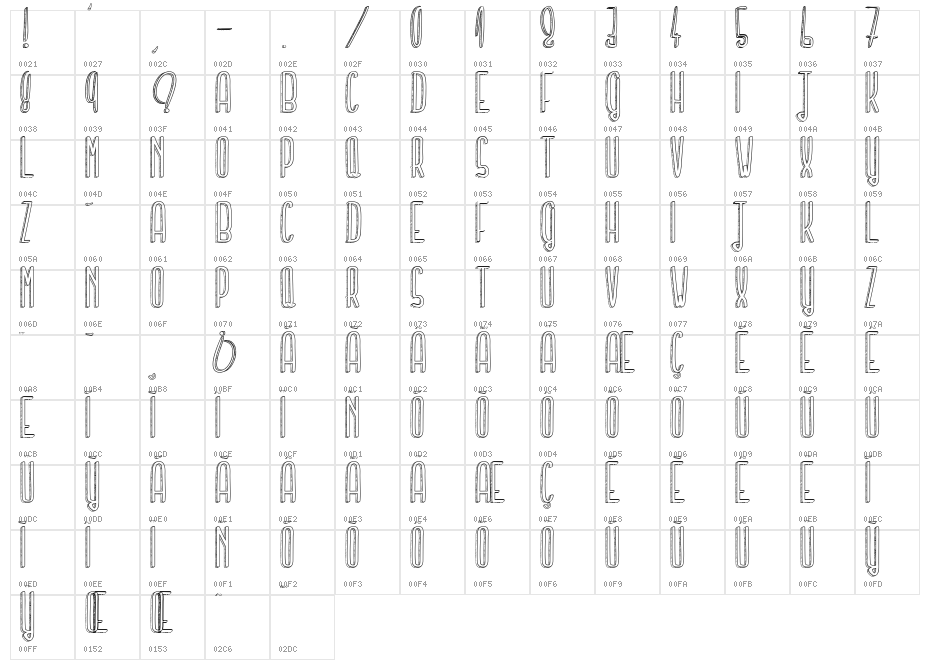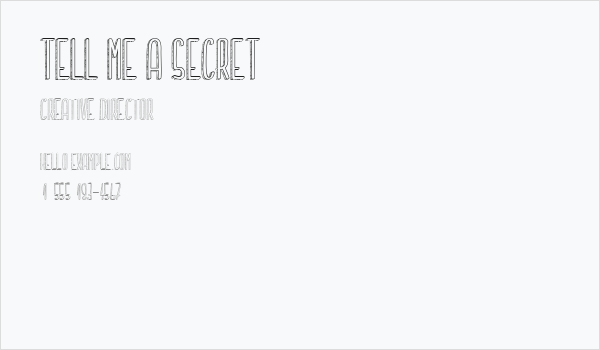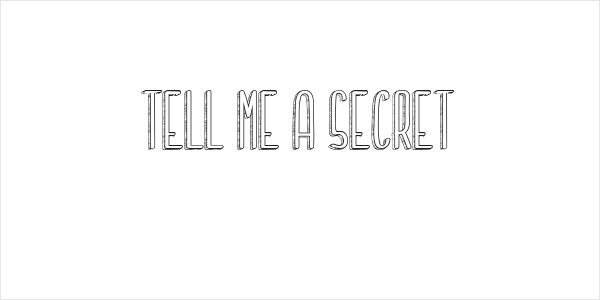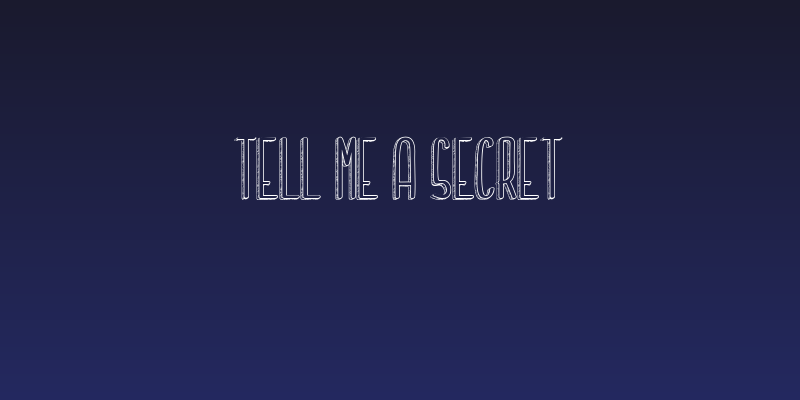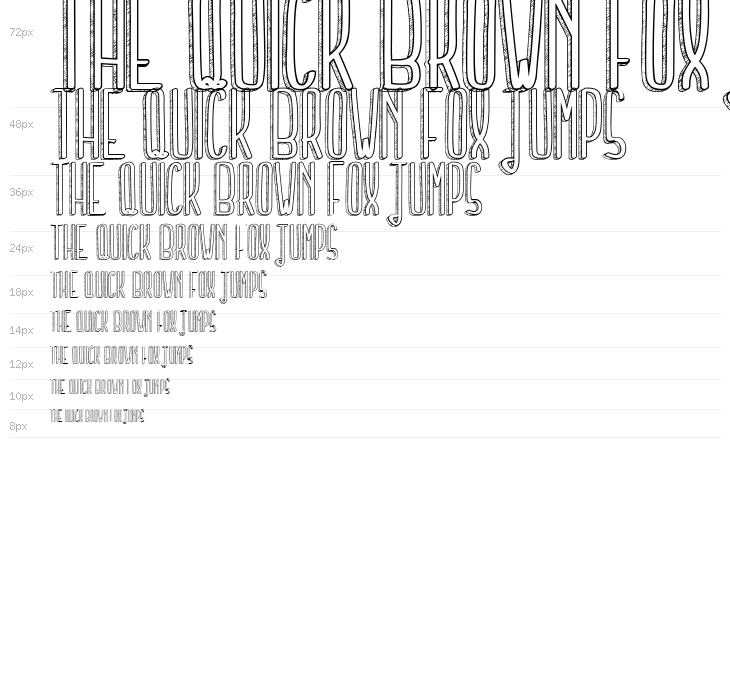
Tell me a secret Font
Tell me a secret Description
This font features a unique, elongated design with a hand-drawn aesthetic. The characters are tall and narrow, with a playful, whimsical quality. The strokes are consistent in width, giving it a monoline appearance, and the letters are slightly irregular, adding to its charm. The font includes both uppercase and lowercase letters, numbers, and a selection of special characters. Its decorative style makes it stand out, while the clear, legible forms ensure readability.
| Proposed Projects | Ideal for creative projects such as posters, invitations, and branding that require a playful and artistic touch. |